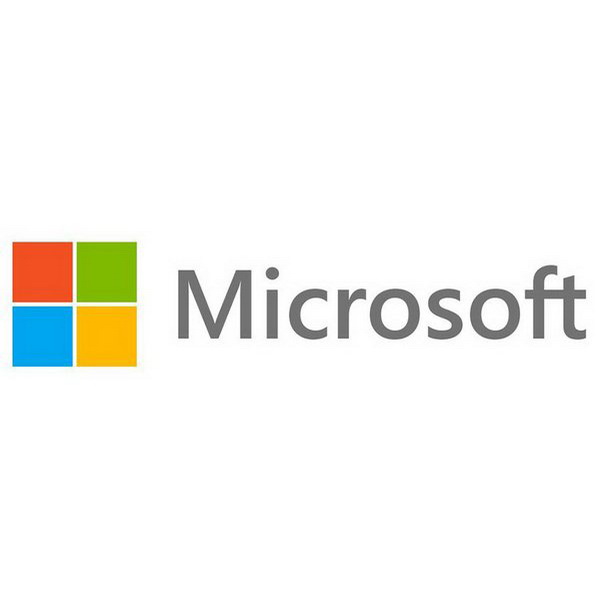
Microsoft Font
Fonts in UseMicrosoft is a multinational technology company known for its software products like Windows, Office, and Azure. It is one of the largest and most influential companies in the tech industry, with a focus on cloud computing, productivity tools, and artificial intelligence.
The Microsoft logo has evolved over the years, with the iconic Pac-Man-like design (1987-2002) based on Helvetica Black Oblique. The current logo (since 2012) features a tile symbol and the Segoe UI logotype, representing the company's main products. Segoe UI is commonly used in Microsoft products.